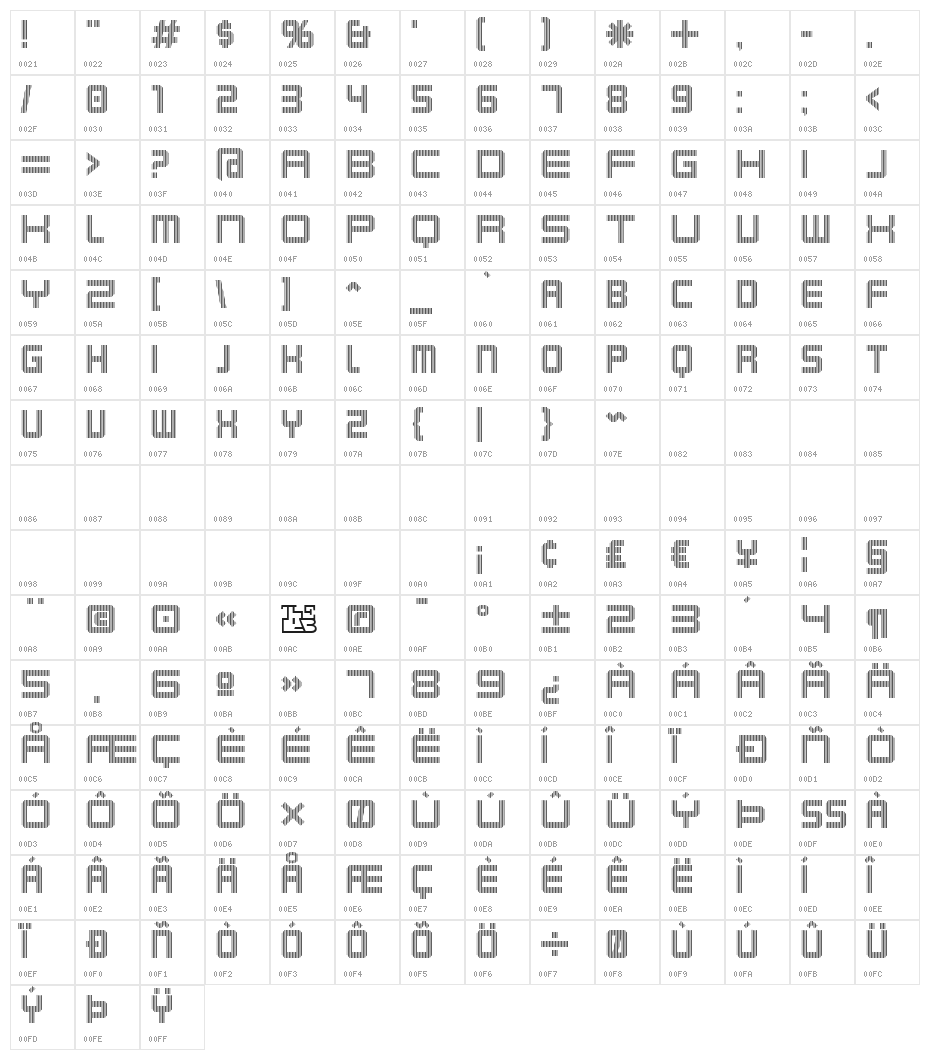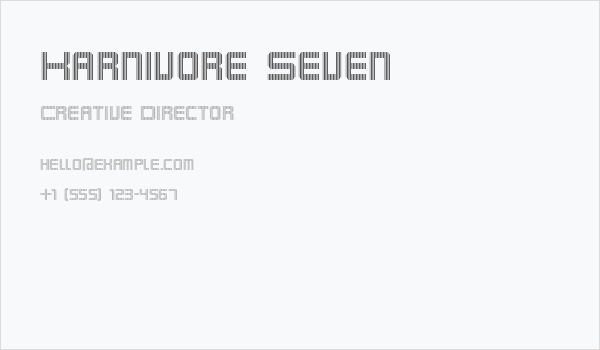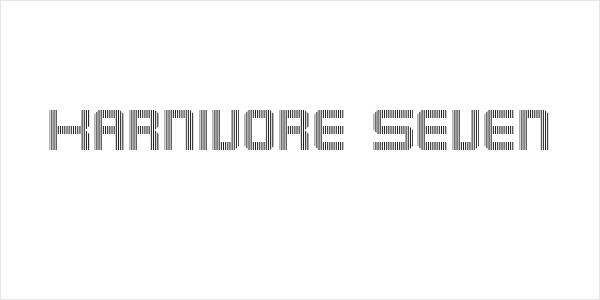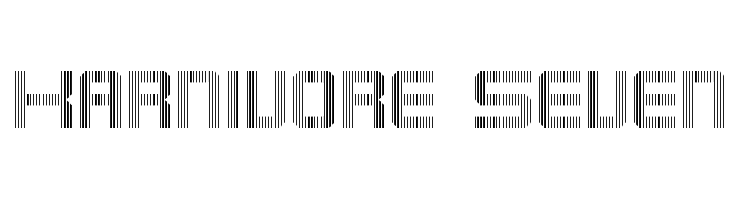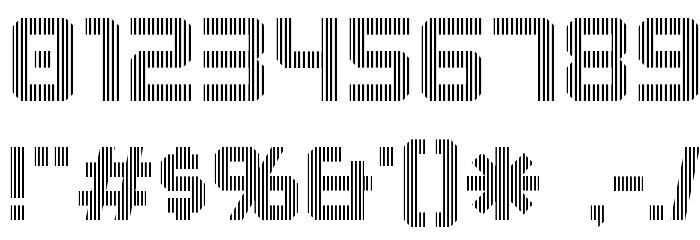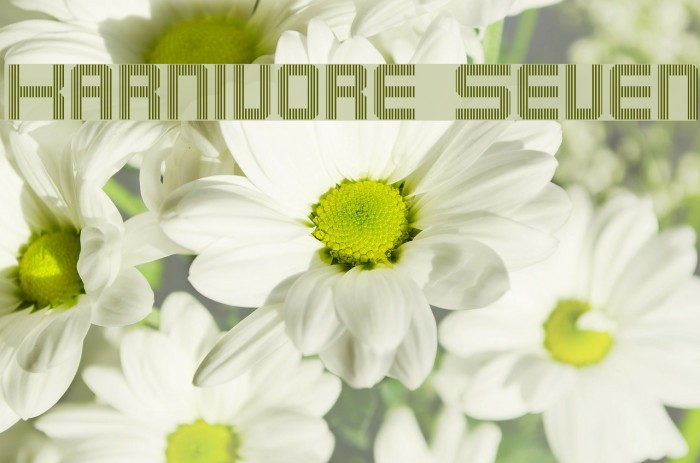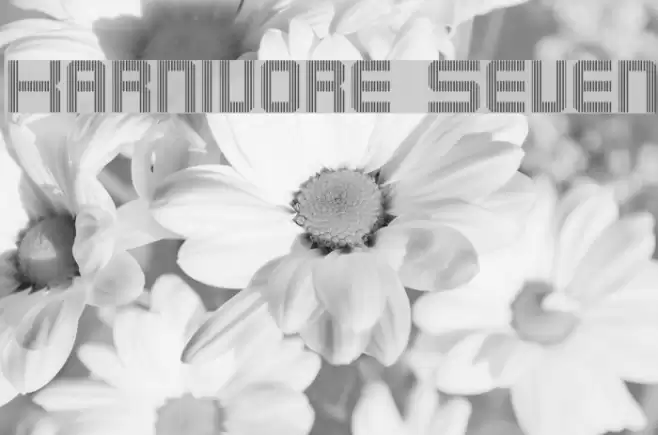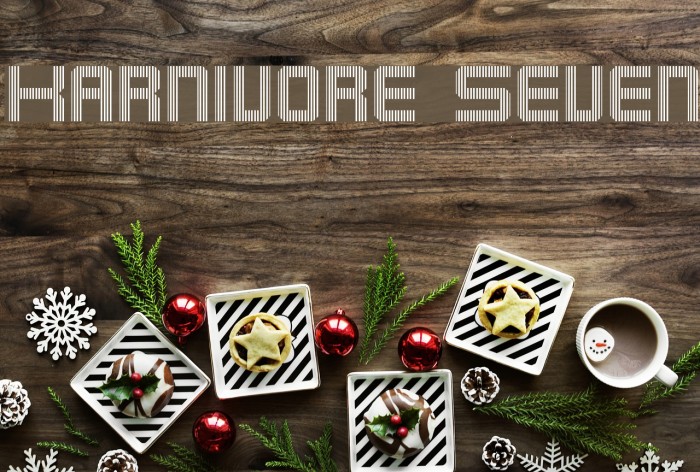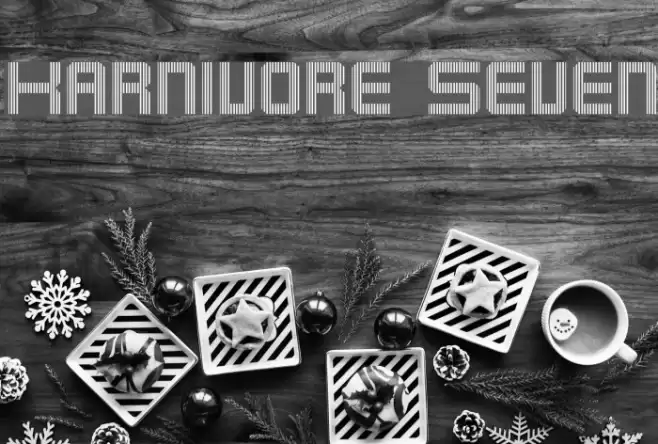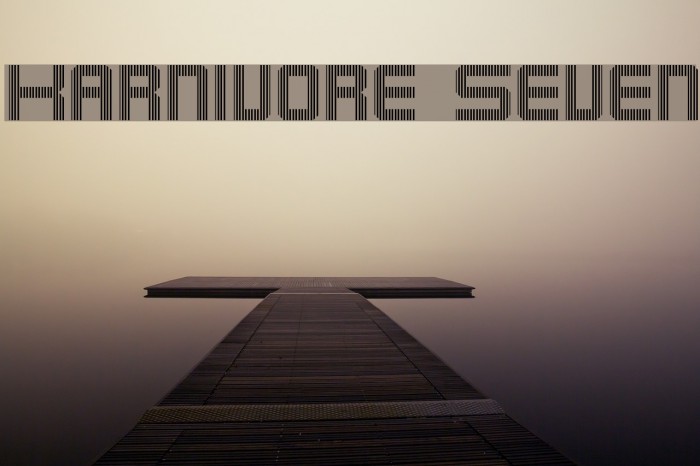
Karnivore Seven Font
Karnivore Seven Description
This font features a unique, striped pattern that gives it a distinct, modern look. Each character is composed of vertical lines, creating a sense of movement and energy. The uppercase and lowercase letters maintain a consistent style, with a geometric and structured appearance. The numerals and special characters follow the same design principles, ensuring uniformity across all glyphs. This font's design is both eye-catching and versatile, making it suitable for a variety of creative projects.
| Proposed Projects | Ideal for branding, posters, album covers, and any project needing a bold, modern aesthetic. |